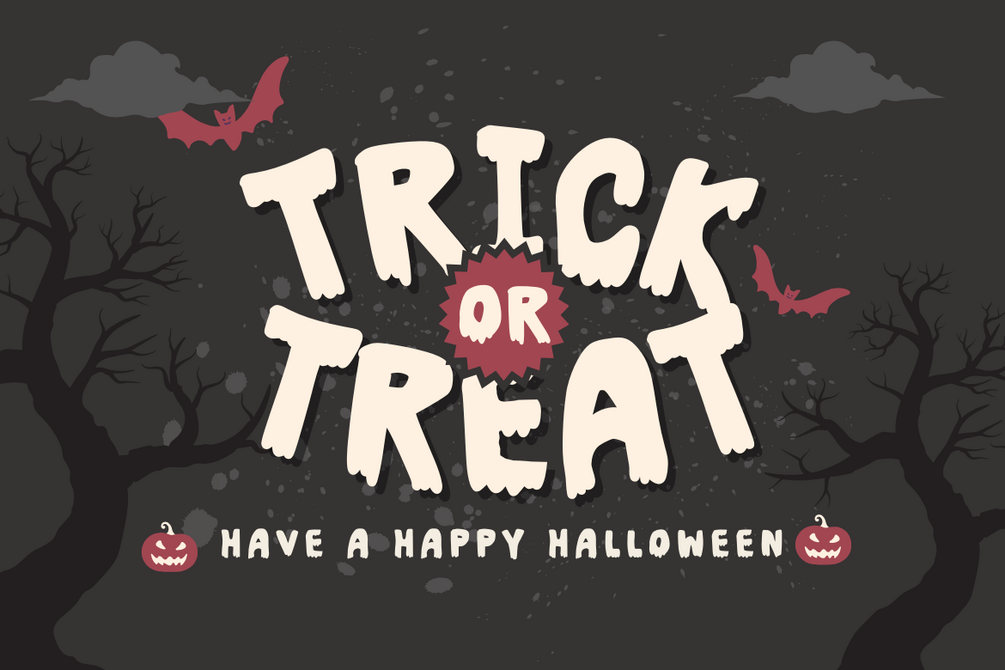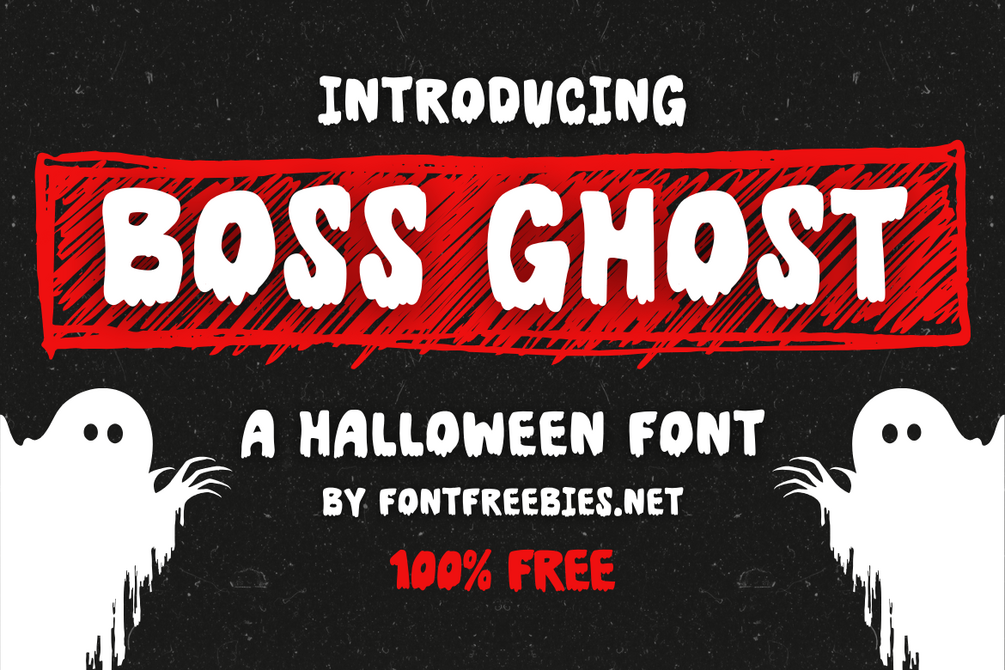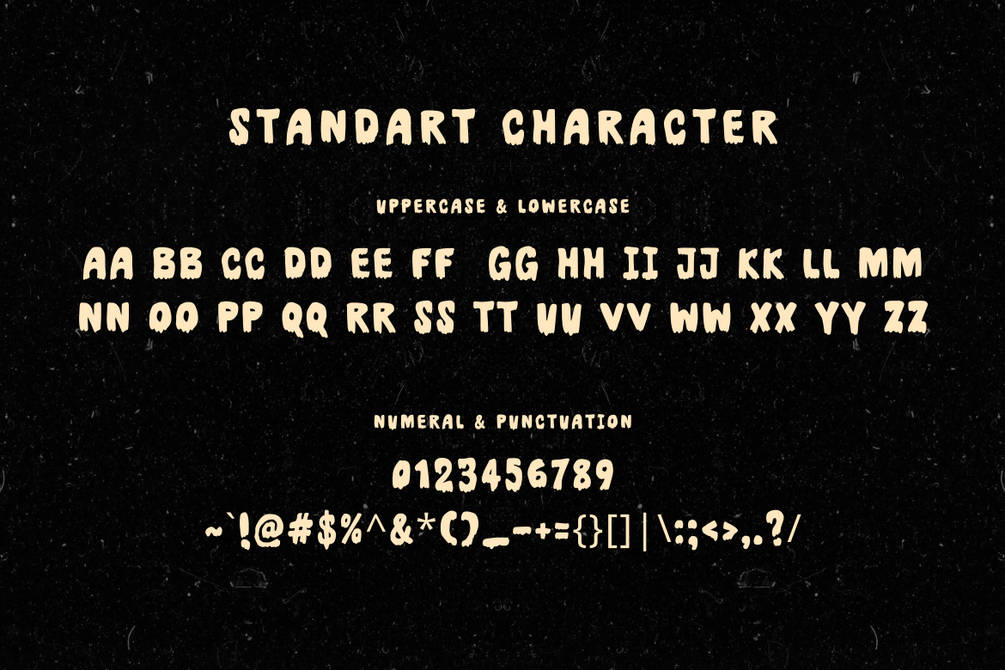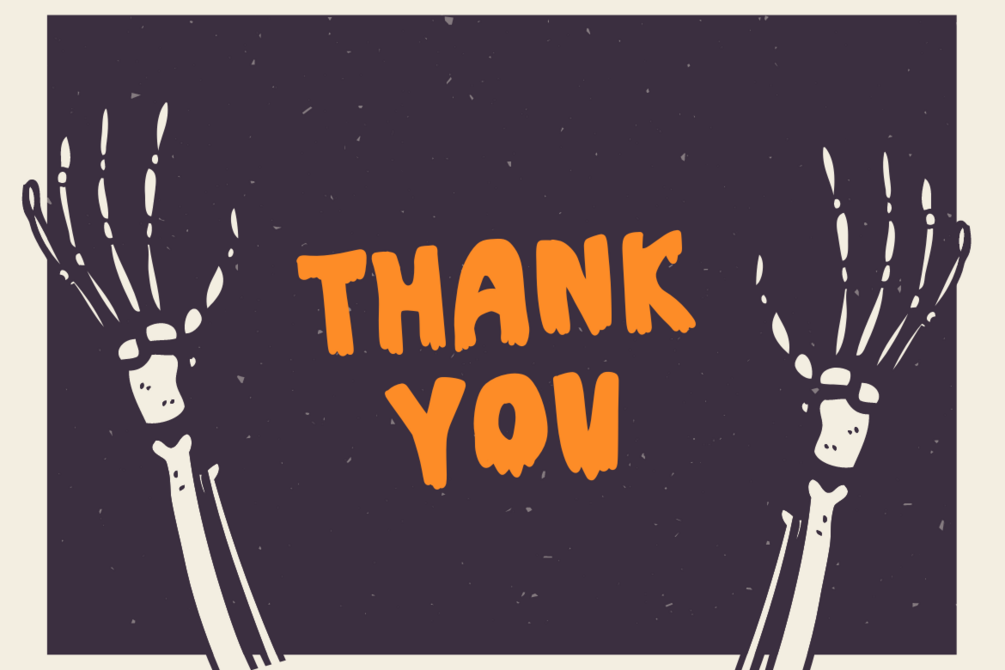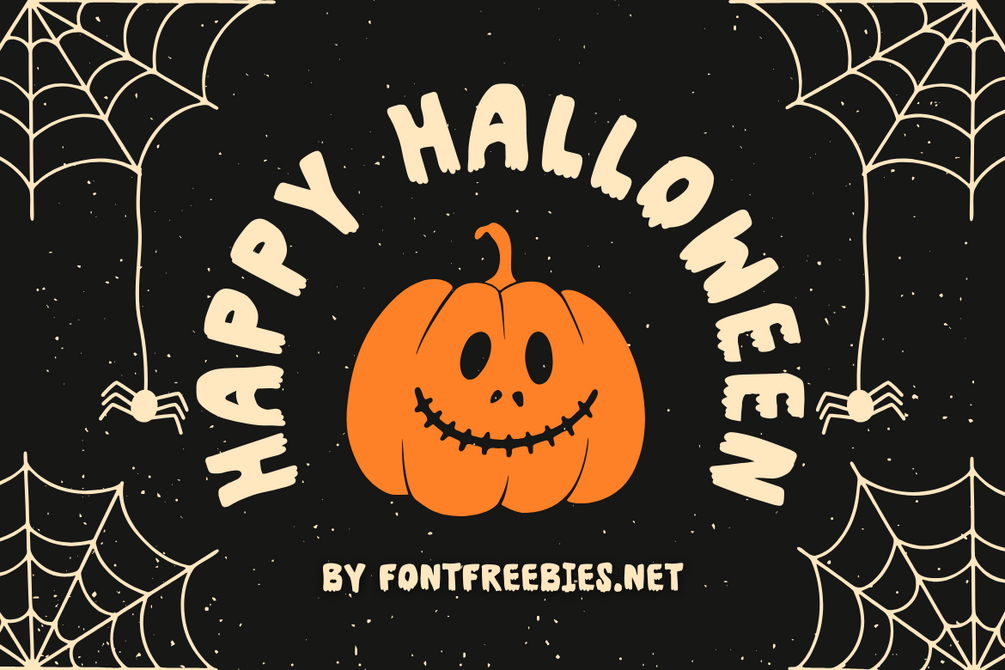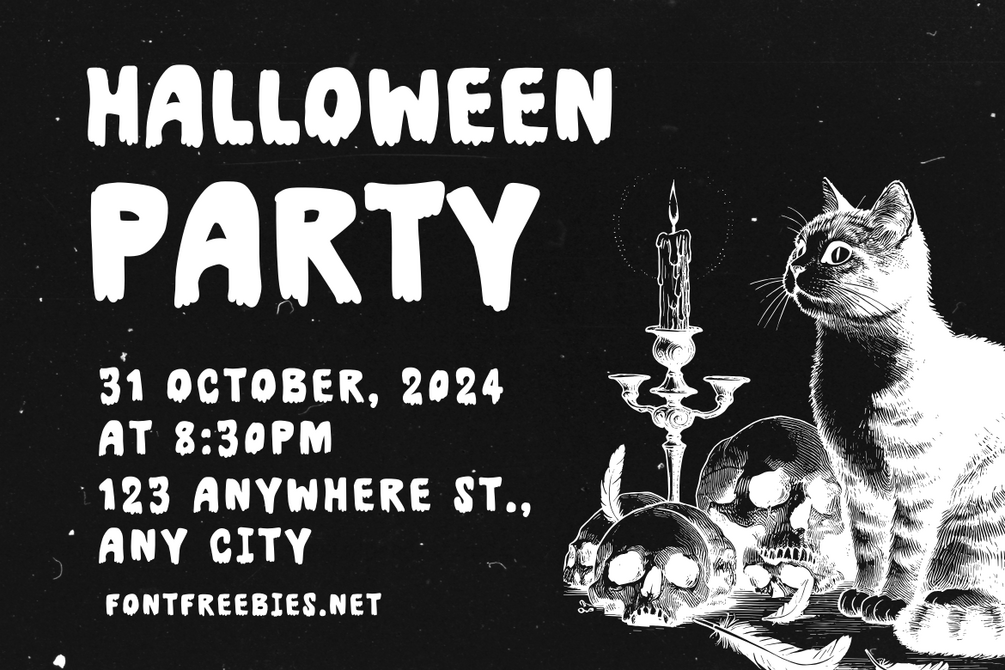
Boss Ghost - A Halloween Font
Boss Ghost is a bold, playful Halloween font that adds a touch of spooky fun to any design. Perfect for Halloween event flyers, invitations, and social media graphics, this free font features thick, rounded letters with a ghostly vibe.